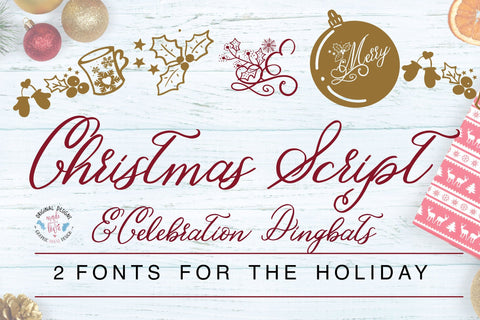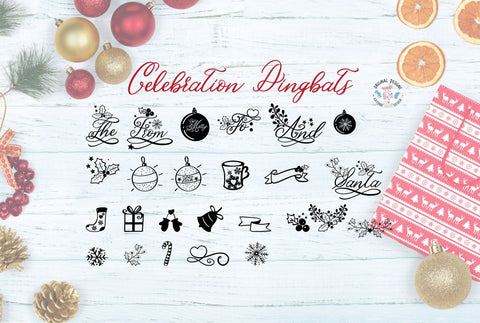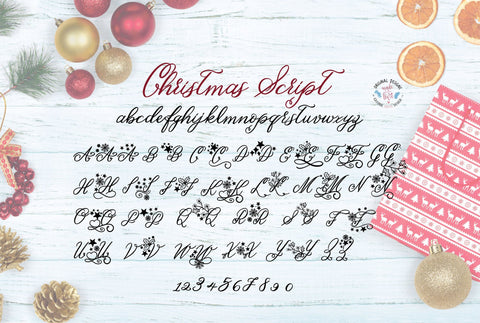
Christmas Script and Celebrations Dingbat Font Duo
Christmas Script is an elegant hand-lettered font which consists of A-Z Capitals, a-z small letters and numbers. The alternate capital letters with the decorations are available through the Glyph Panel so please consult your software of voice if it supports Alternate Characters.
Celebration Dingbats comes to give it a more playful character and you can mix and match to create your own Christmas and Holiday Designs.